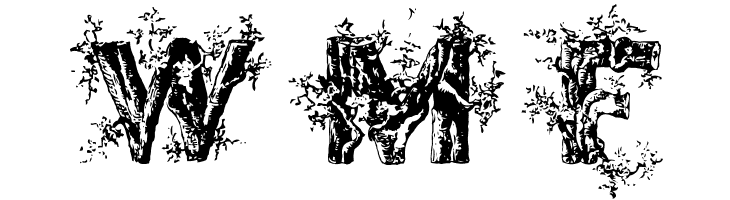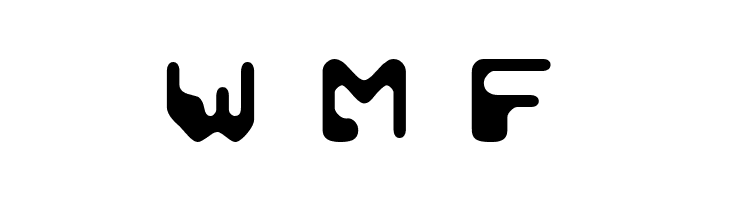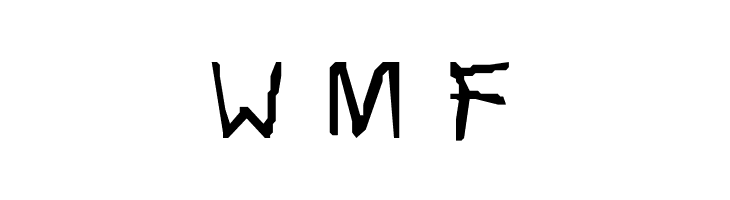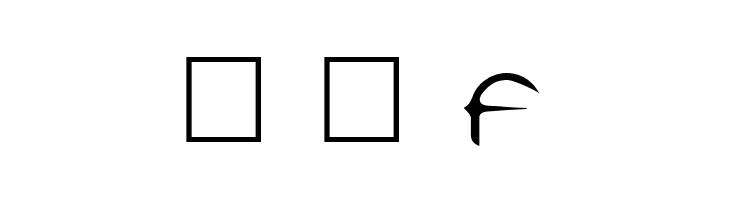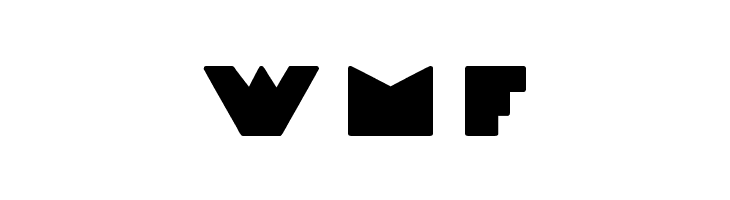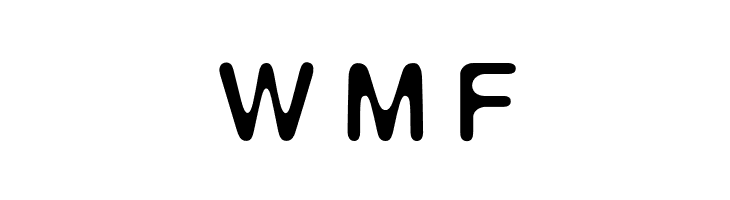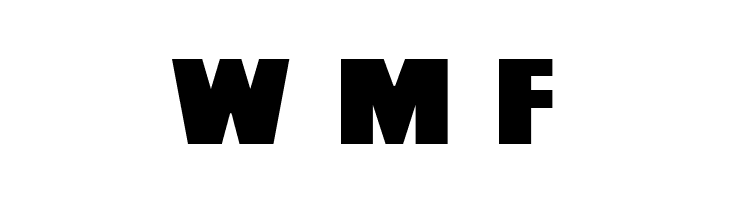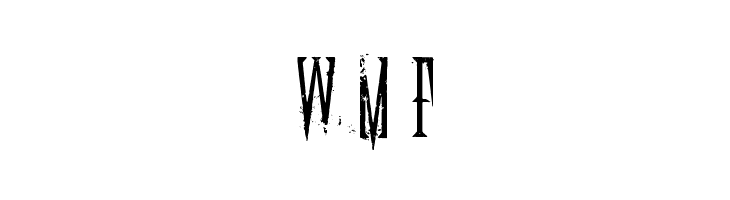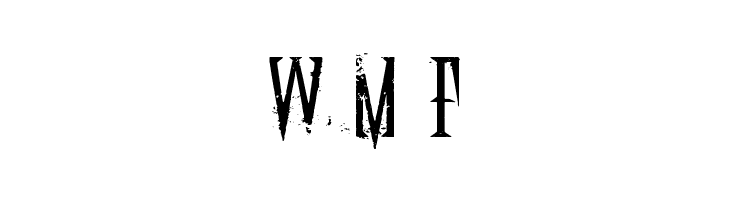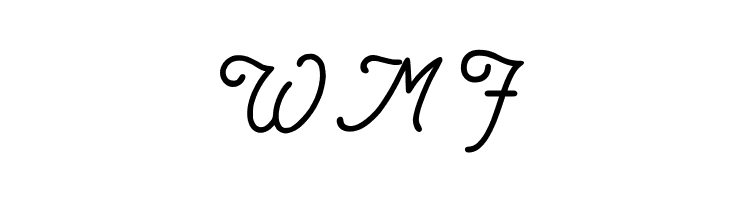
A bold, distressed font with tall, narrow letterforms and a gritty, weathered texture.
A bold, distressed gothic-style font with sharp, angular lines and a rugged texture.
A bold, distressed font with a rugged, edgy appearance.
A bold, distressed font with sharp, angular edges and a gritty texture.
A pixelated, geometric font reminiscent of digital displays and retro gaming.
A playful, handwritten font with a casual and informal style.
A playful, handwritten font with a casual and friendly appearance.
A bold, modern font with strong, thick strokes and uniform width.
A bold, heavy font with strong, uniform strokes for impactful designs.
A bold, italic font with high contrast and tight spacing, perfect for impactful designs.
A bold, angular graffiti-style font with dynamic, fragmented characters.
A bold, geometric font with a futuristic and modern aesthetic.
A bold, geometric font with strong, uniform letterforms.
A bold, oblique font with a dynamic and modern style.
A decorative font with intricate, nature-inspired patterns.
A rounded, modern font with smooth curves and consistent stroke width.
A rounded, smooth font with uniform strokes and a friendly appearance.
A clean, rounded sans-serif font with smooth curves and uniform strokes.
An elegant, flowing script font with smooth, cursive letterforms.
A pixelated, digital-style font with a cohesive blocky structure.
A bold, distressed font with a cracked, rugged appearance.